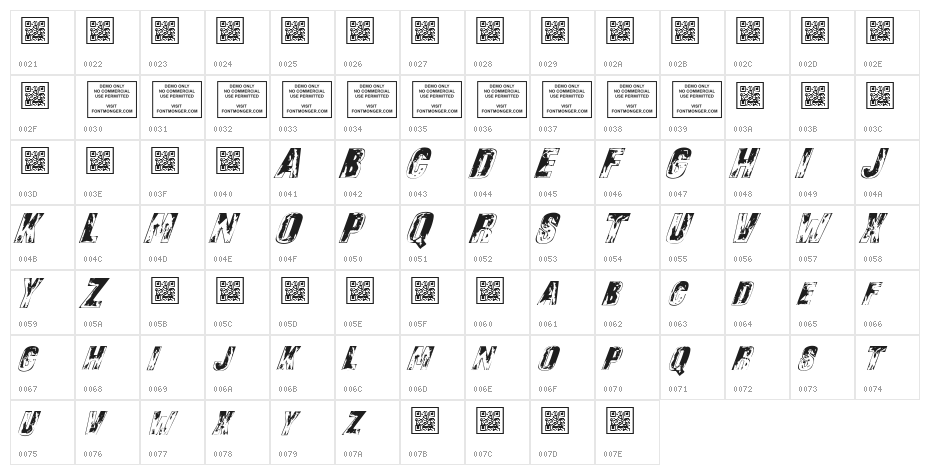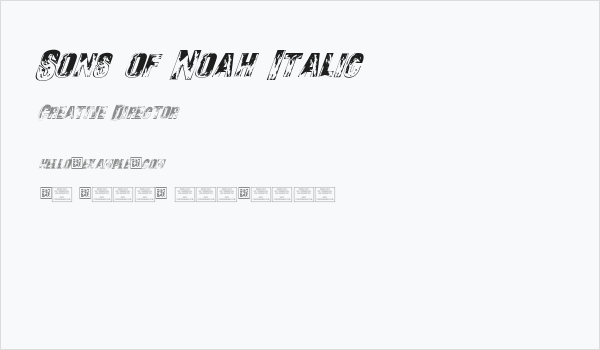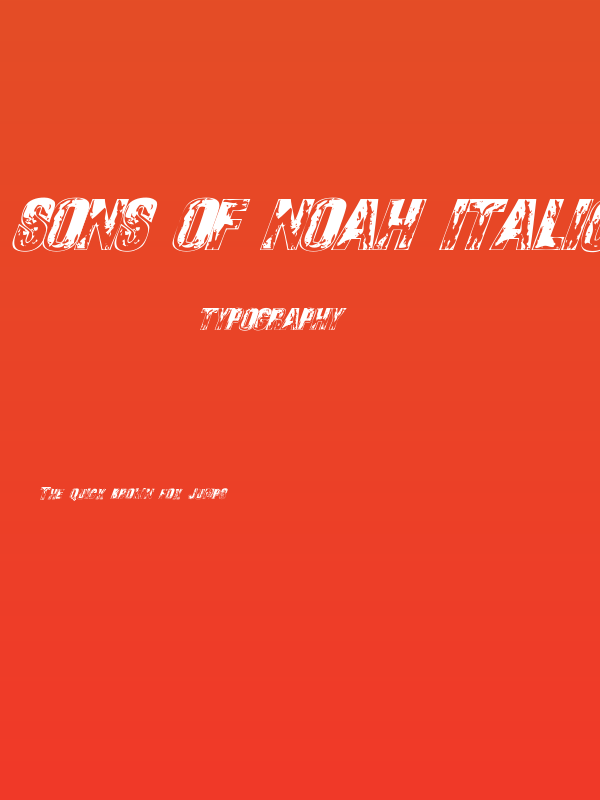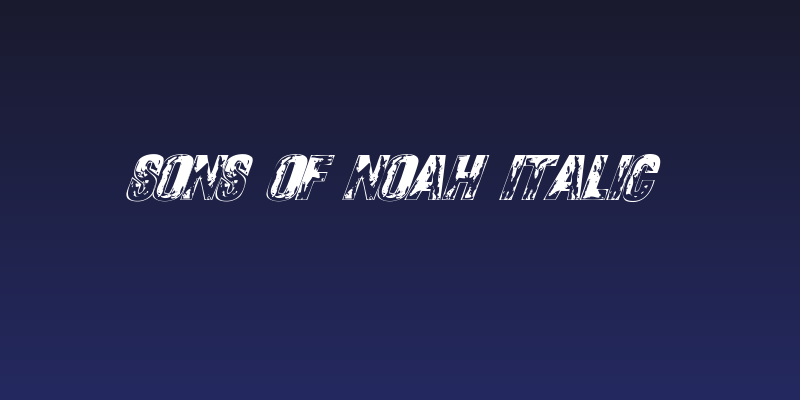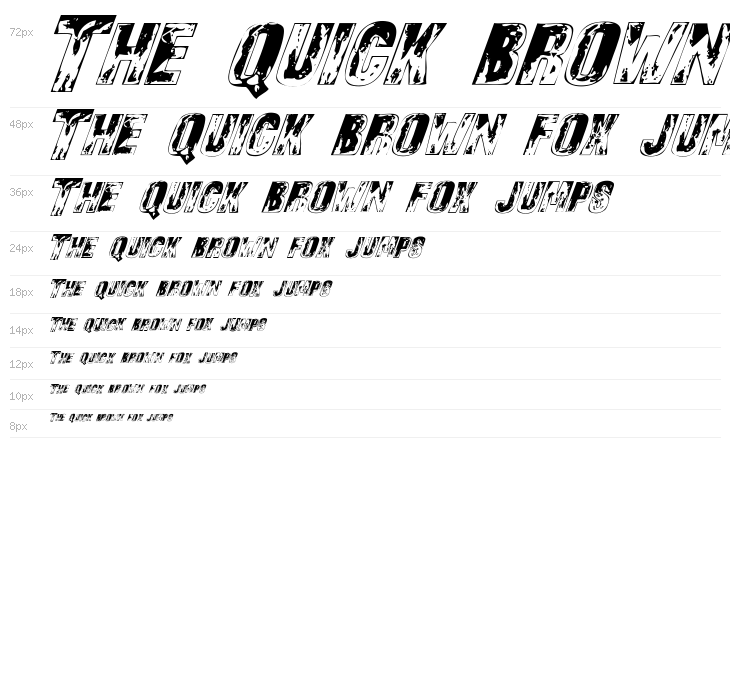
Sons of Noah Italic Font
Sons of Noah Italic Description
This font features a bold, distressed style with a dynamic, italic slant. The characters are heavily textured, giving them a rugged, worn appearance that suggests a sense of movement and energy. The uppercase letters are prominent and impactful, making them suitable for attention-grabbing designs. The font's unique aesthetic is achieved through irregular edges and a grunge-like texture, which adds depth and character. This style is ideal for projects that require a bold statement or a vintage, rebellious feel. The combination of boldness and texture makes it versatile for various creative applications.
| Overall Style | Vintage, Decorative |
| Proposed Projects | Ideal for posters, album covers, branding for edgy products, and any design needing a bold, vintage look. |